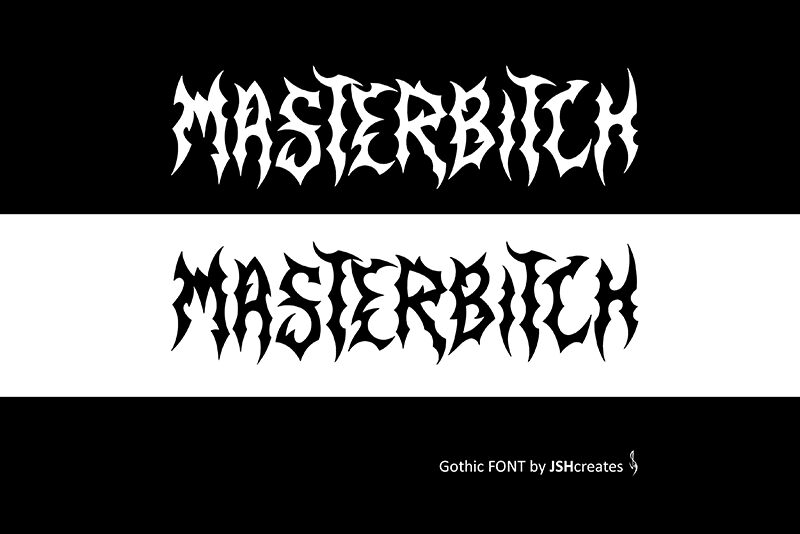
Masterbitch
Masterbitch font offers a condensed and modern gothic touch that brings sharp and angular letter shapes with versatile application opportunities. Designed by JSH Creates, the aggressive and edgy free font is a word visual style with intense use of appearance which is especially stylish for display-related projects.
Masterbitch suits publication titles, book covers, social media posts, typography dance music posters, apparel packaging labels especially for musicians or bands merchandise as well as typography illustration artwork.